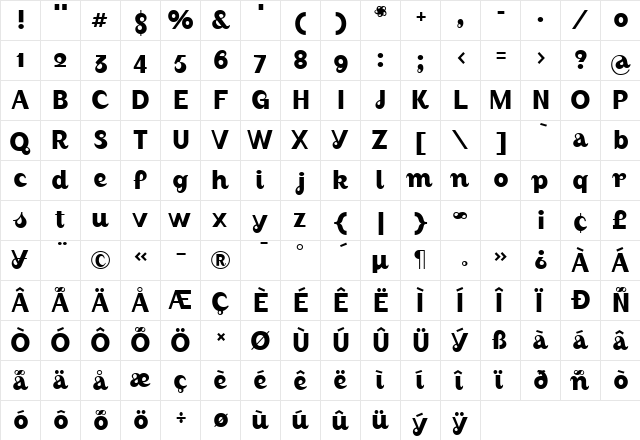
AugustMedium Regular
Design Context for AugustMedium Typeface
AugustMedium is a composed and adaptable typeface that performs quietly and consistently across a wide range of design contexts.